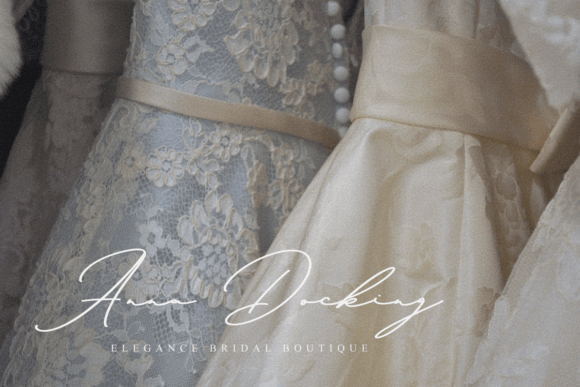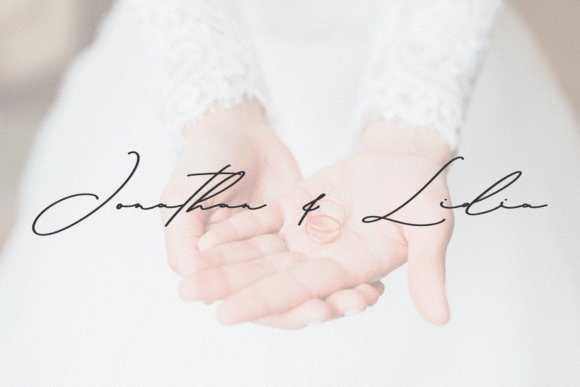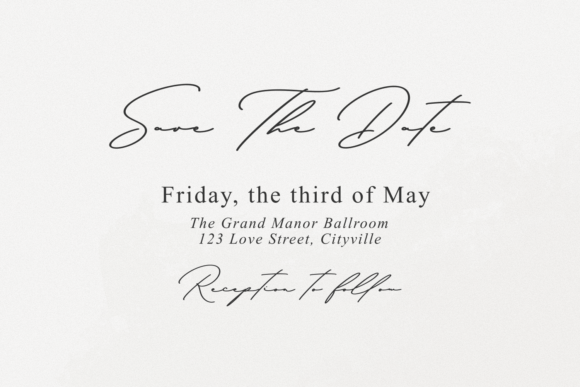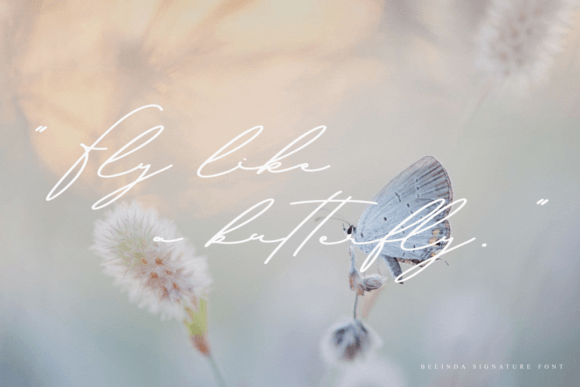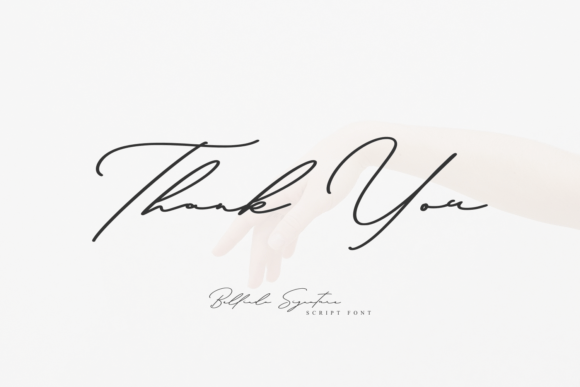
The Perfect Script Font for Your Next Design Project
Have you ever stared at a blank page, struggling to find the perfect font to bring your design to life? You know, that moment when the right words just won’t seem to come together? That’s where Bellinda Signature Font comes in – a luxurious script font that exudes elegance and sophistication in every stroke.
This beautifully crafted font is designed to elevate your designs and make them stand out from the crowd. Whether you’re creating logos, labels, branding materials, invitations, or websites, Bellinda Signature Font is the perfect addition to take your projects to the next level. With its PUA encoding, you can access all glyphs and swashes with ease, giving you endless possibilities to customize and personalize your designs.
As a designer, you understand the importance of choosing the right font to convey your message and make a lasting impression. That’s why Bellinda Signature Font is a valuable asset to have in your design toolkit – it’s the perfect way to add a touch of luxury and sophistication to your work.
Bellinda Signature Font Key Features
- Unique Characteristics: Features a unique blend of modern and elegant design elements, including flowing lines and subtle flourishes.
Bellinda Signature Font Review
Overall, I was excited to try out the Bellinda Signature Font. Here’s my honest take:
- The font has a beautiful, elegant feel to it. It’s perfect for creating a high-end, sophisticated look in your designs.
- The font family includes a range of weights and styles, which makes it easy to find the perfect combination for your project.
- The font is highly legible, even at smaller sizes, which is a must for any font.
- The font is not particularly unique or distinctive. It’s a fairly common, classic font style that you’ve probably seen before.
- The font doesn’t come with a lot of special features or effects, which may be a disappointment for designers looking for something more unique.
Overall, I’d give the Bellinda Signature Font 3.5 out of 5 stars. While it’s a solid, dependable font, it doesn’t particularly stand out from the crowd. If you’re looking for a classic, elegant font for your designs, you may want to consider the Bellinda Signature Font. But if you’re looking for something more unique or cutting-edge, you may want to keep looking.
Tips for Getting the Most Out of the Bellinda Signature Font
Experiment with different font sizes and styles to create visual interest. Pair the Bellinda Signature Font with complementary fonts to add depth and complexity. Use the font in conjunction with high-quality images and graphics to create a polished and professional design.
The Bellinda Signature Font is ideal for creating elegant and sophisticated designs, such as: business cards, wedding invitations, and branding materials. Use the font to add a touch of luxury and sophistication to your designs.
Q: What is the character set of the Bellinda Signature Font?
The Bellinda Signature Font includes a comprehensive character set, covering Latin, Cyrillic, and Greek alphabets, as well as a range of punctuation and symbol characters. The font also includes support for ligatures, swashes, and other advanced typographic features.